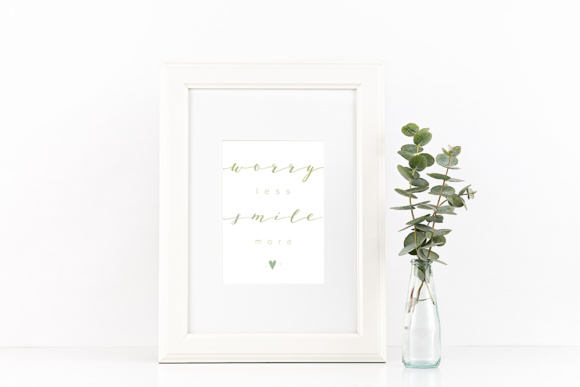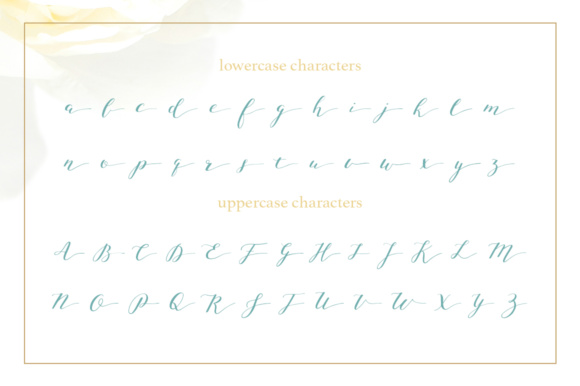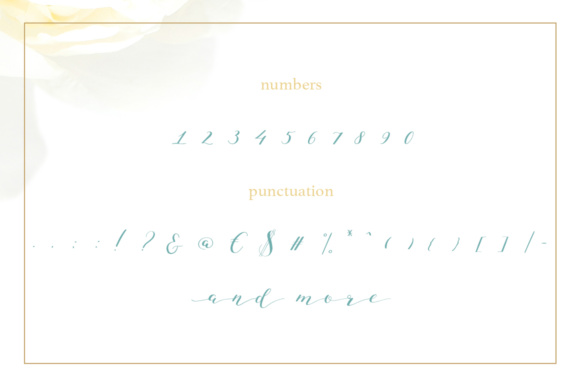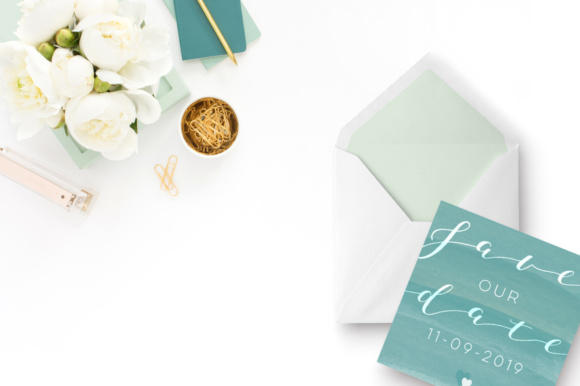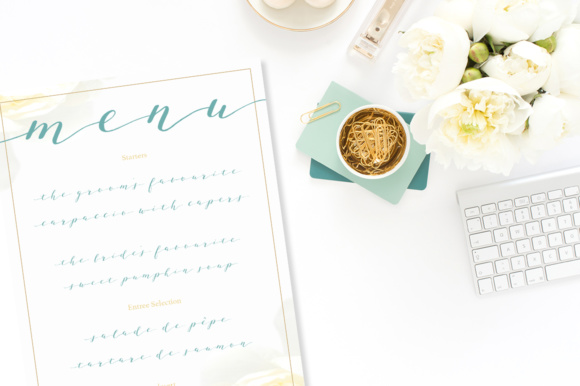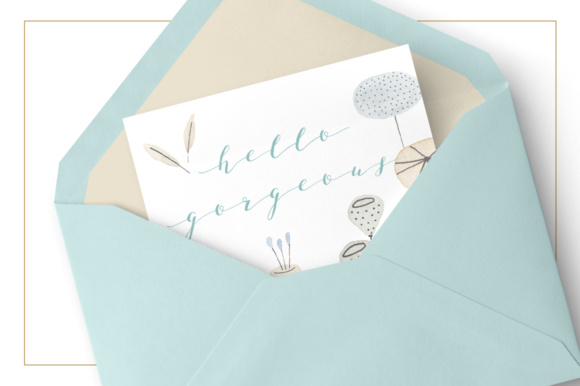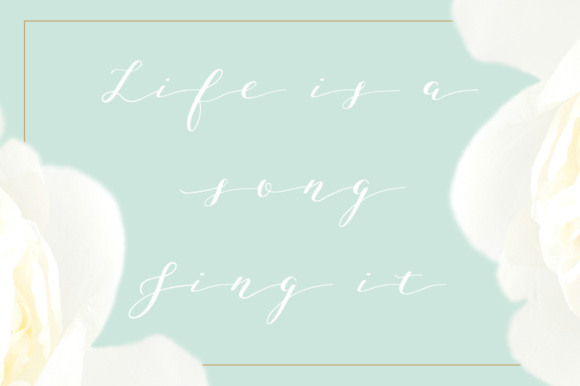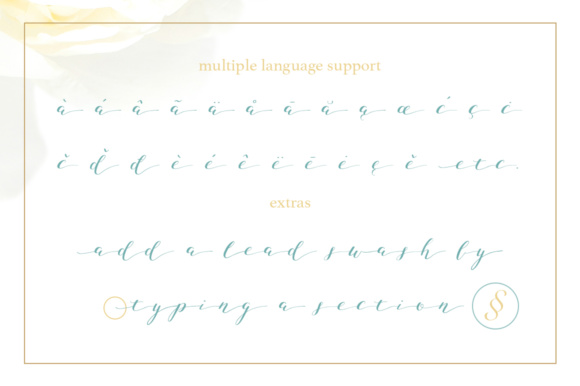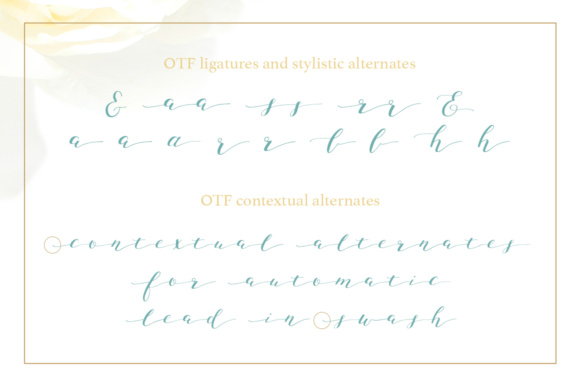
Joleni Font
About Joleni Font
Joleni is a carefully handmade font. It is soft and elegant and is smoothly blending in with a classic wedding stationery collection, floral wall art or feminine business logos.
This font has alternates for each glyph and a set of ligatures as well. See the previews and read below on how to acces them manually.